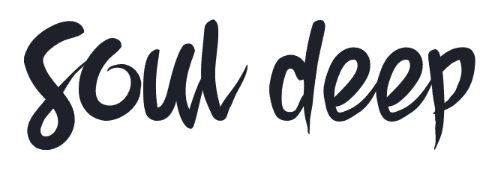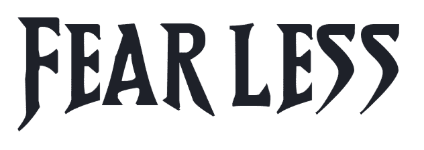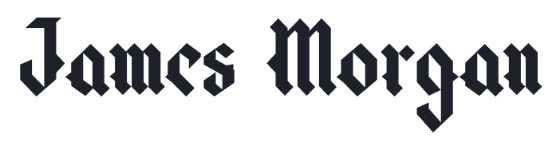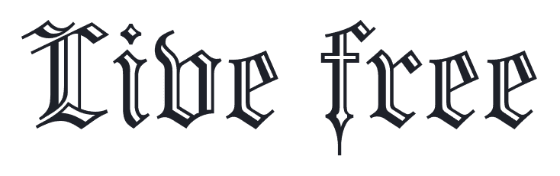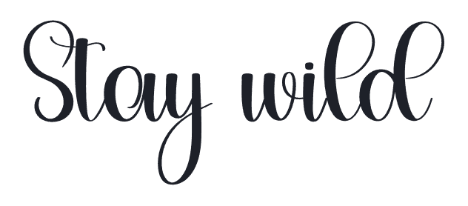
Free tattoo font generator
Compare tattoo fonts for your name or a short quote. Explore script and blackletter styles, customize your lettering, and download PNG or SVG.
• Find lettering for your words.
Use our free tattoo font generator to see your name, initials, or a short quote in several fonts at once. Compare flowing cursive, decorative calligraphy, and bold blackletter using the words you actually want. Adjust the size, color, and line breaks, then download your favorite lettering as PNG or SVG.
• Compare ideas for your tattoo.
Explore different tattoo lettering styles before choosing a direction with your artist. Try the same phrase in script and Old English fonts, or compare a full name with initials. Save a few versions to discuss the letter shapes, overall size, and placement. The downloads give your artist a reference to adapt.
How to use the tattoo font generator
1. Enter your text
Type a name, initials, or a short phrase you want to preview as tattoo lettering.
2. Choose a style
Compare script, calligraphy, and blackletter previews using your own words.
3. Customize the lettering
Adjust size, colors, line height, and alignment to explore different arrangements.
Common questions
• What does this tattoo font generator do?
It renders the text you enter in different fonts so you can compare tattoo lettering ideas. Type a name or short quote, choose a style, customize the appearance, and download the lettering as PNG or SVG.
• Can I preview my name or a quote?
Yes. Enter your own name, initials, or short phrase to compare its letter shapes across fonts. You can use up to five lines, with up to 50 characters per line.
• How do I choose a tattoo font?
Compare the same text in several styles, paying attention to capitals, joins, and the space inside letters. Save the versions you like and discuss the intended size and placement with your tattoo artist, who can adapt the lettering for the design.
• Can I try cursive and Old English lettering?
Yes. Explore script and calligraphy for flowing lettering, or blackletter styles for more angular forms. The previews show how your own words look in each font, rather than only displaying a sample alphabet.
• Is the download a finished tattoo stencil?
The download is a font-based lettering reference. Your tattoo artist can adjust its shapes, spacing, and proportions and prepare a stencil for the chosen placement. The generator does not preview the design on your body.
Use cases
• Name lettering.
Compare a name such as ‘Sofia’ in cursive, calligraphy, and blackletter fonts. Look at the capital and the connections between letters, then save the versions you want to discuss with your artist.
• Initials.
Try a single initial or a pair such as ‘A & M’. Compare simple letterforms with decorative capitals and see how the composition changes when you place the initials on one line or separate lines.
• Memorial lettering.
Preview a loved one’s name or a short phrase such as ‘Always with me’. Explore lettering that suits the words, and bring the selected versions to your artist as references for a personal design.
• Short quotes.
Use the tattoo text generator to compare a phrase such as ‘Stay curious’. Try one line and a stacked arrangement, checking how the words fit together before choosing a direction for the lettering.
• Single-word designs.
See how a word such as ‘Breathe’ changes between flowing script and bold blackletter. Compare the overall shape and flourishes, then save a few alternatives for a discussion about size and placement.
• Paired lettering.
Preview complementary words such as ‘Here’ and ‘Now’ in the same font. Generate each separately and compare their proportions to explore a pair of related lettering designs with your artist.
• Dates and numerals.
Enter a meaningful date and compare how its numerals and separators appear in different fonts. Check that the selected font includes the characters you need and that the date remains easy to read.